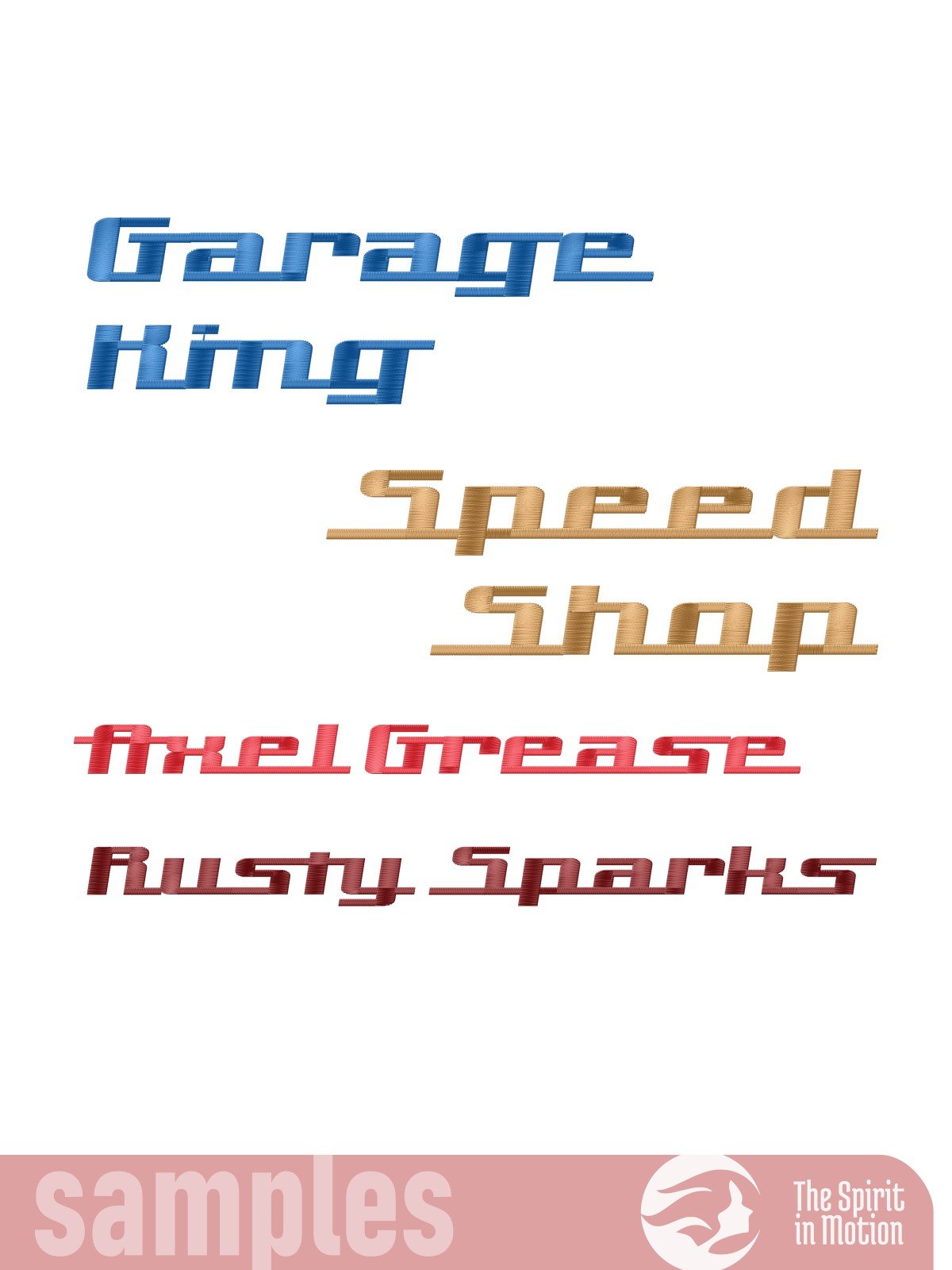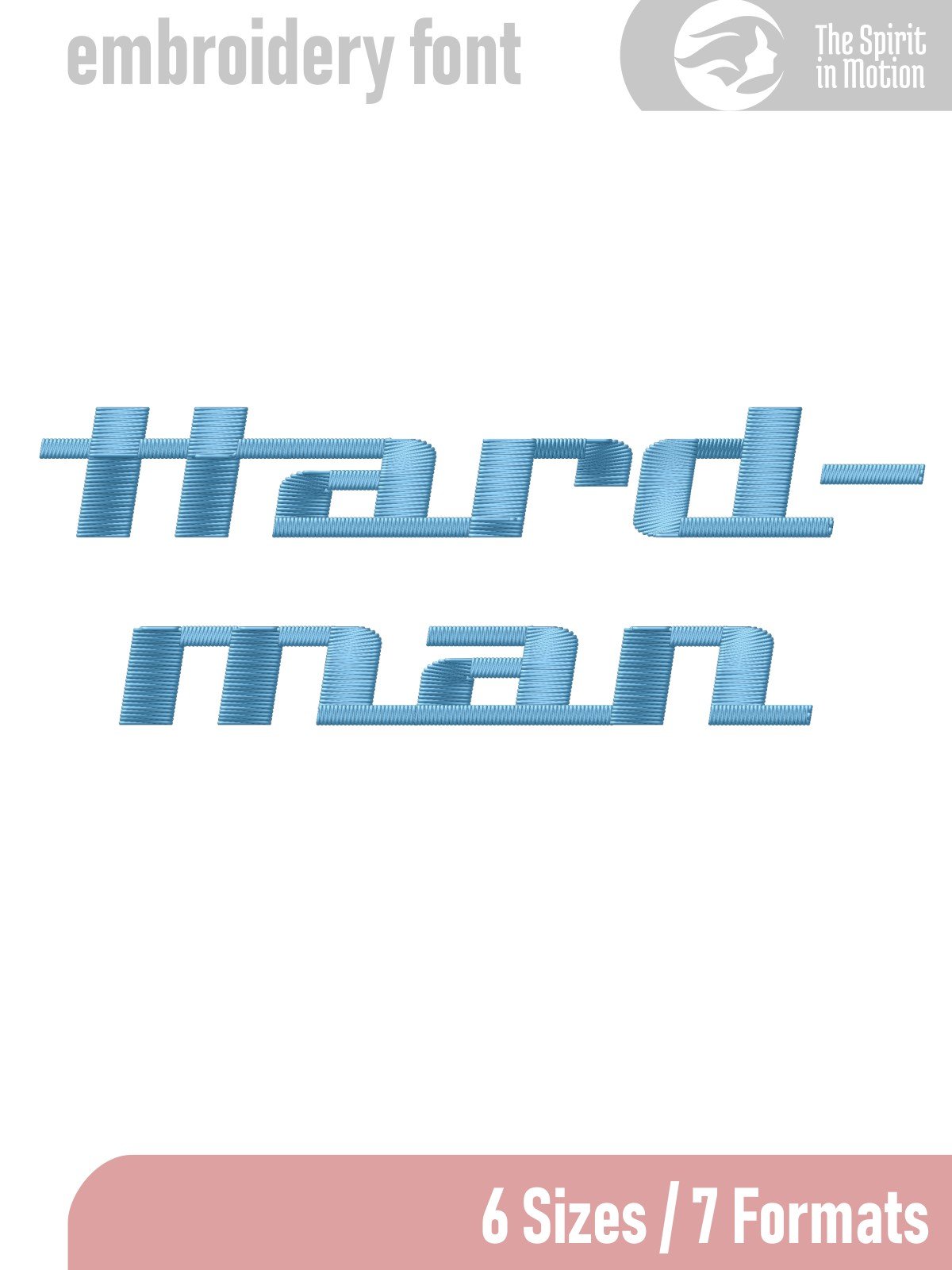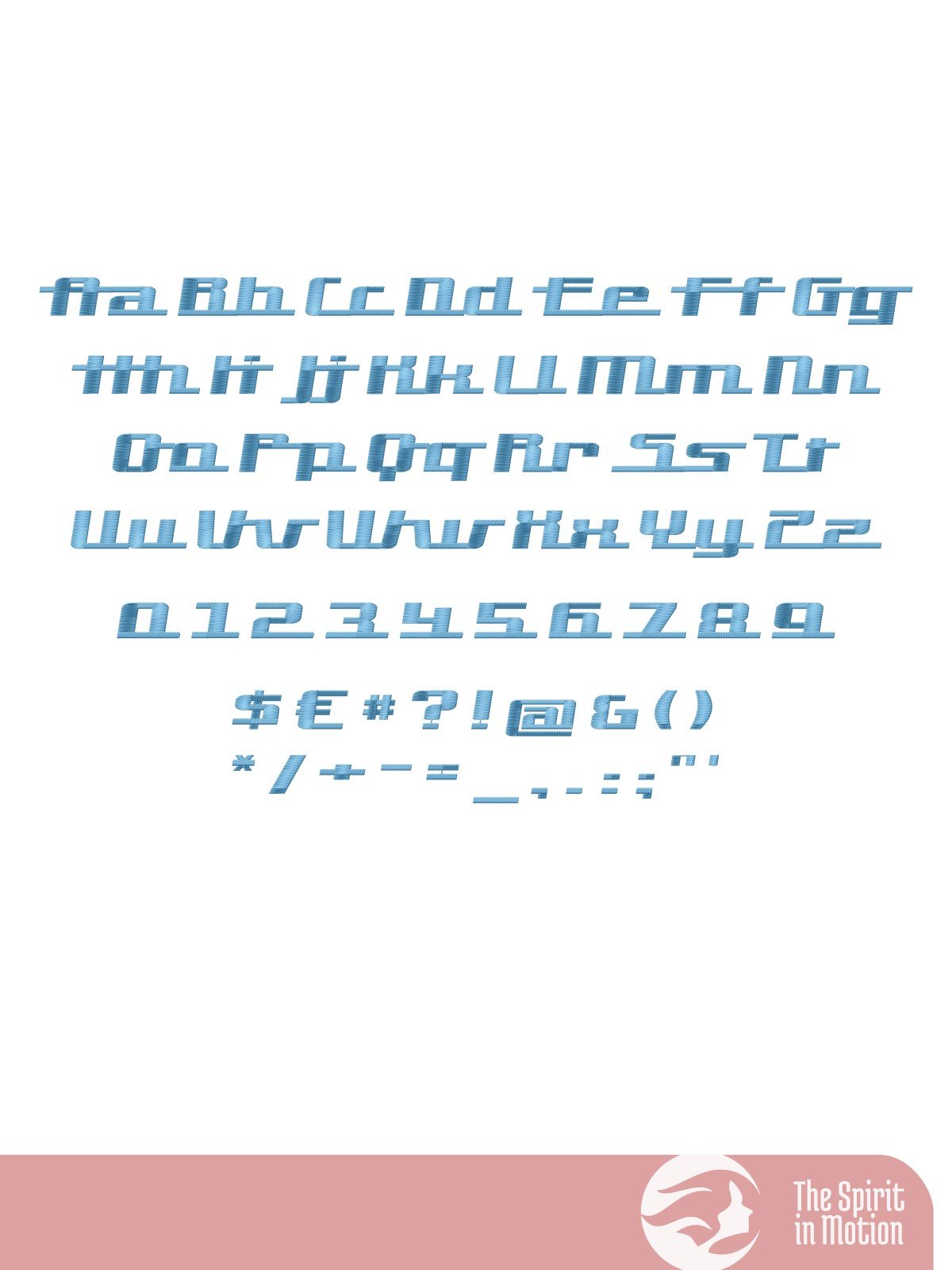
Hardman Retro Machine Embroidery Font | PES, BX, DST
Bring bold retro flair to your embroidery projects with the Hardman font, featuring connected lettering and a distinctive garage-style aesthetic. With its sleek, streamlined shapes and vintage automobile badge influence, this font captures the spirit of classic car culture and mid-century design. Perfect for stitching names, logos, or themed apparel with a rugged, industrial edge.